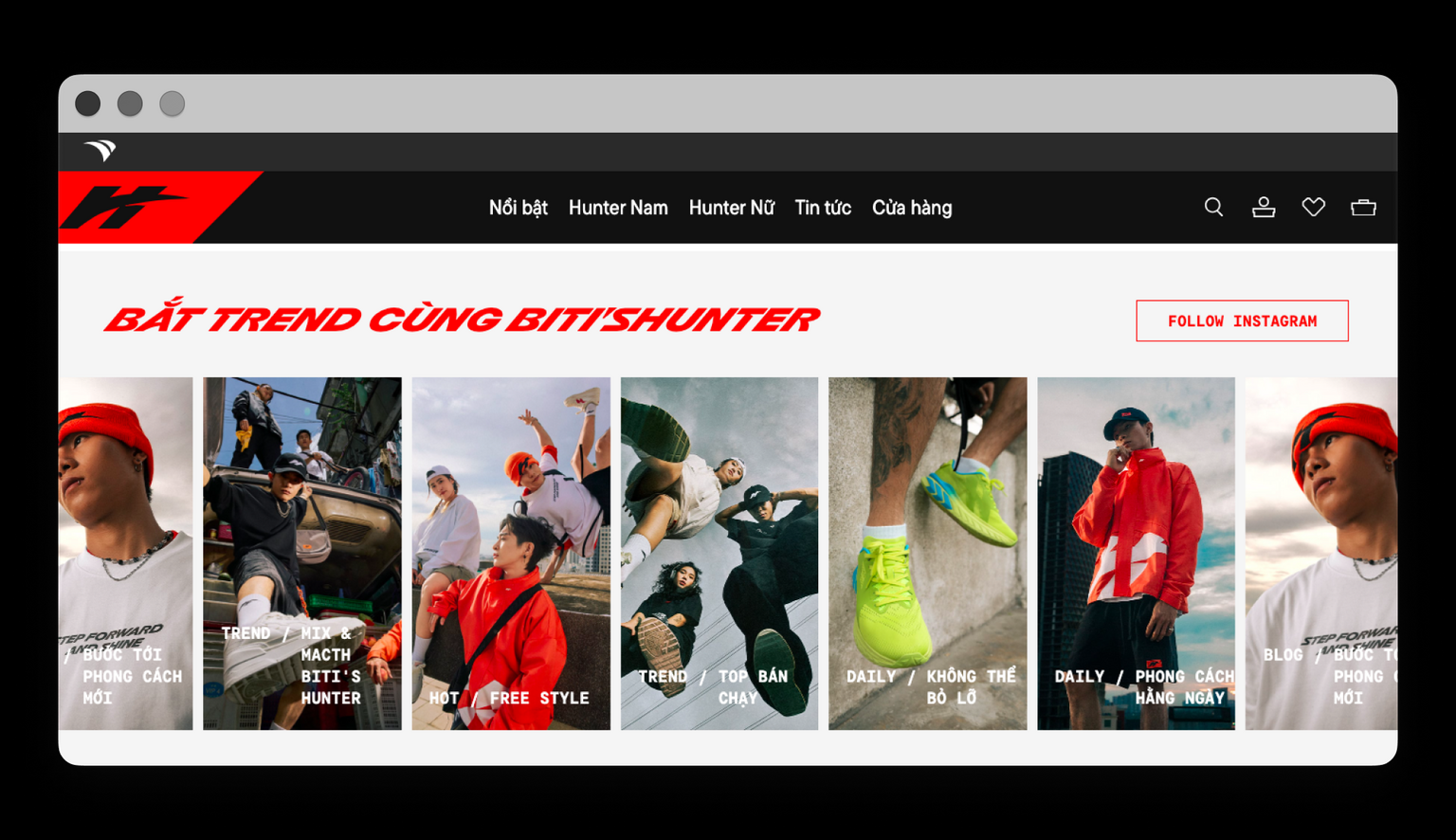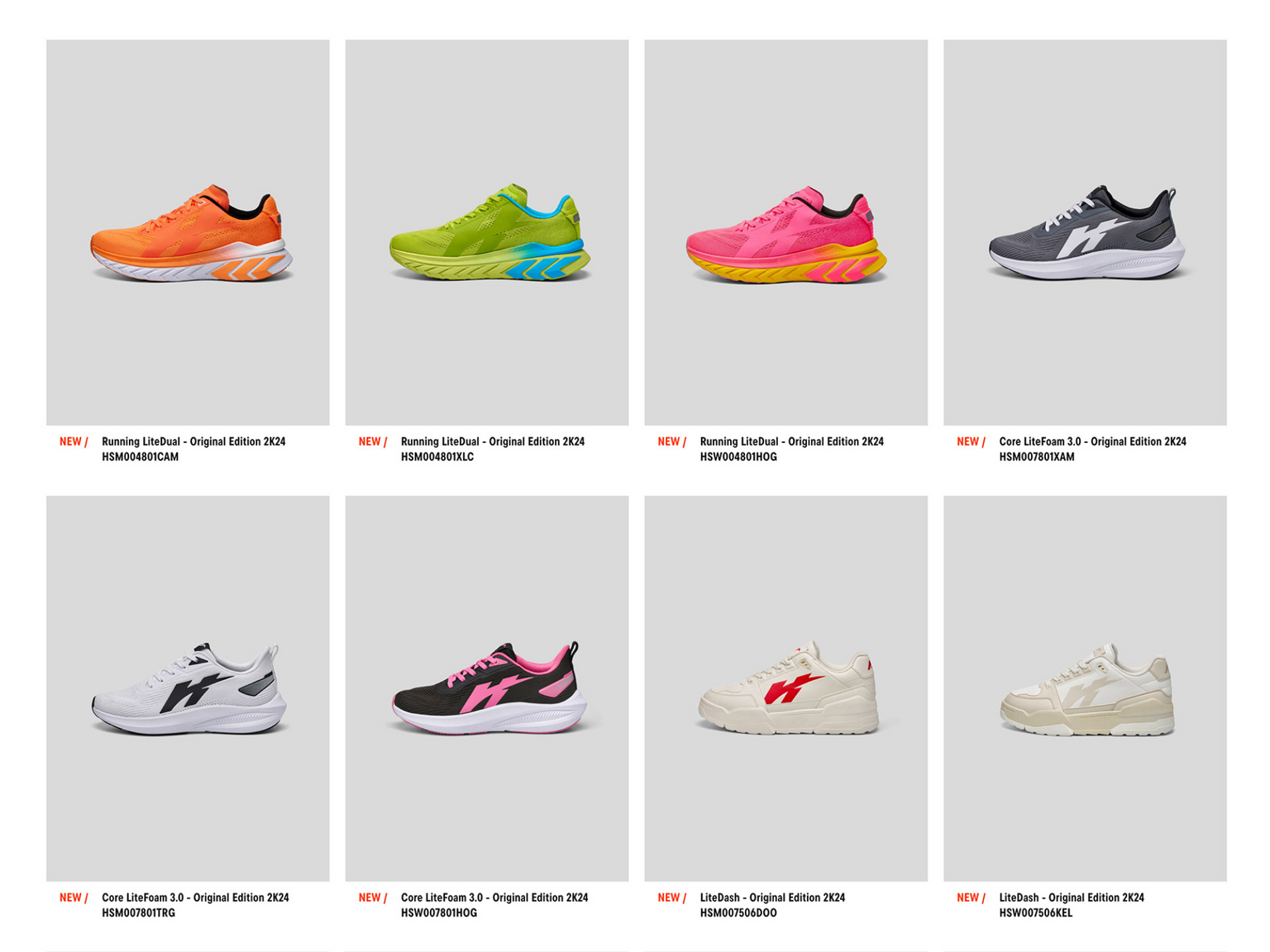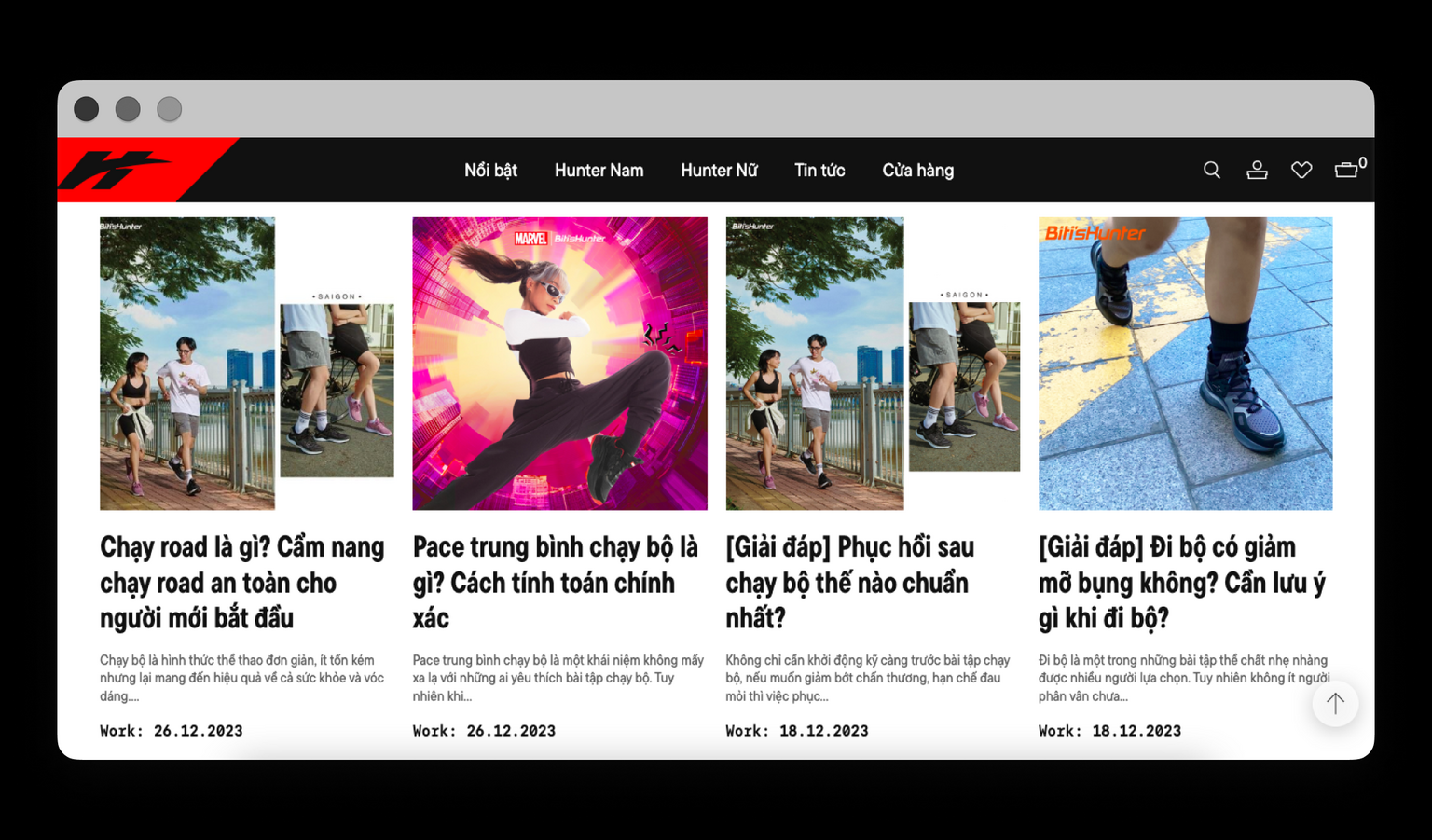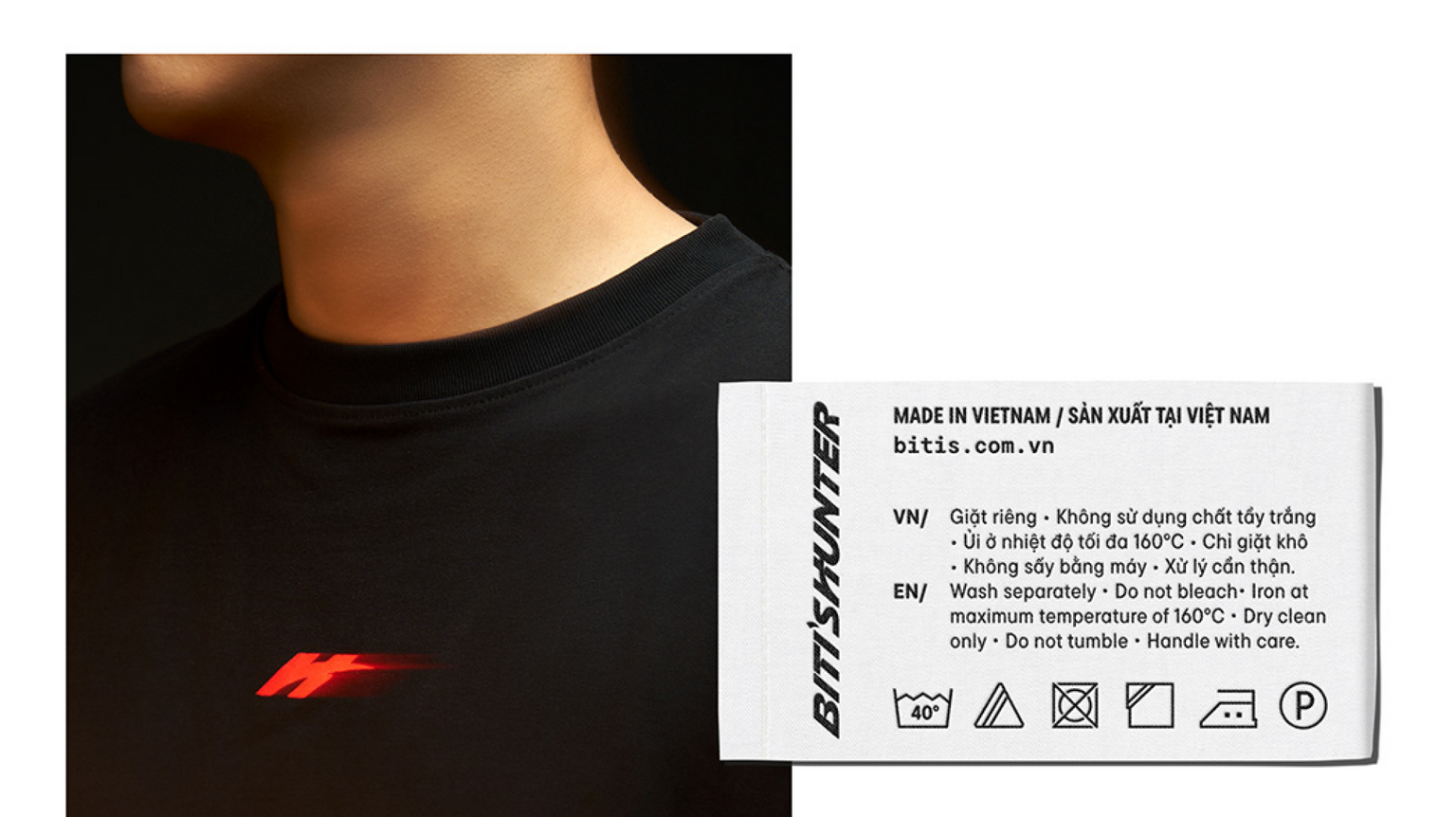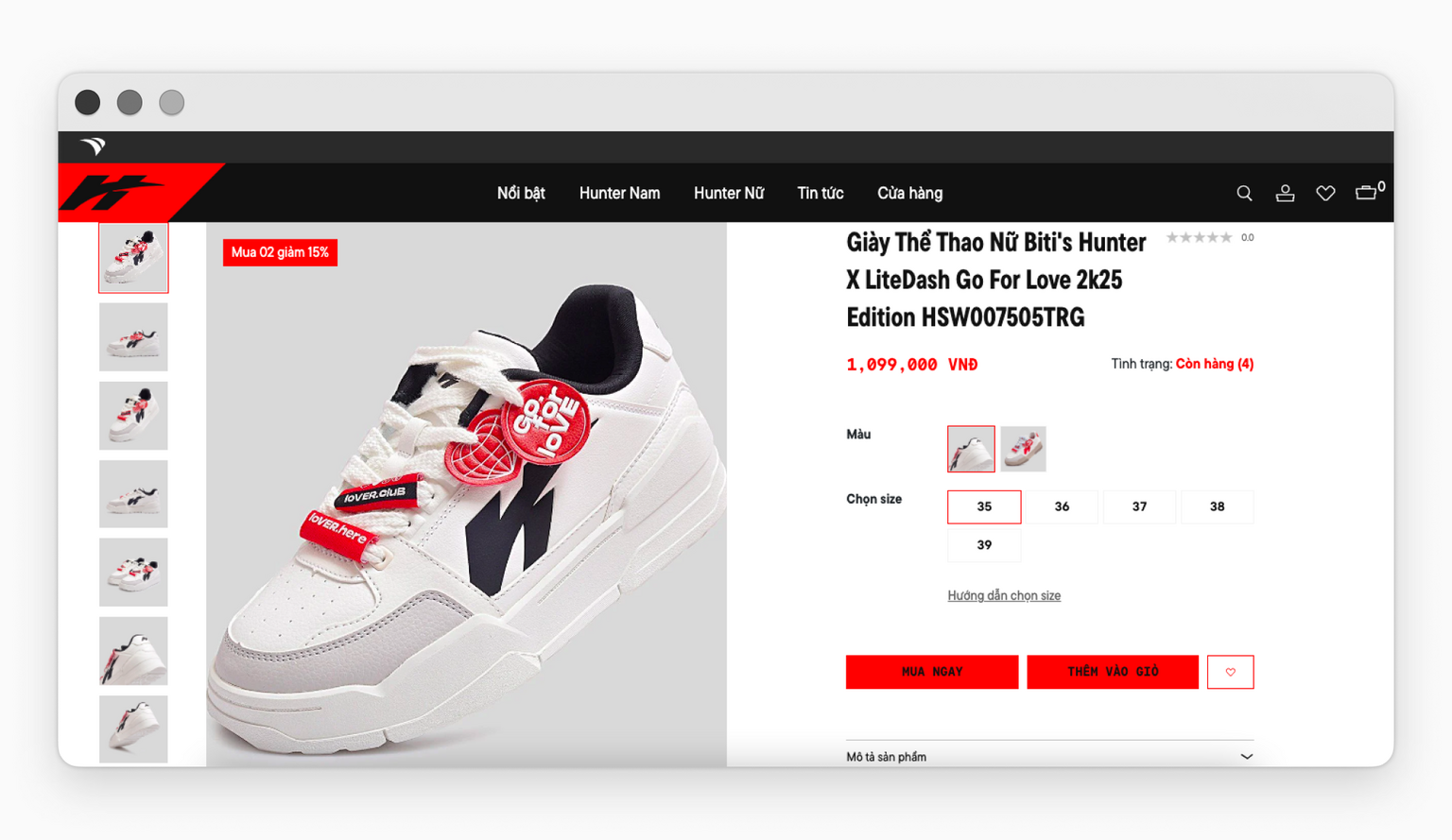
TT Commons™ Pro is now part of Biti’s Hunter new brand identity, a Vietnamese sneaker company.
Biti’s Hunter is a leading Vietnamese brand. It has become a symbol of modern Vietnam, representing local pride and self-assurance. The use of the TT Commons™ Pro font gives it a functional and contemporary look.